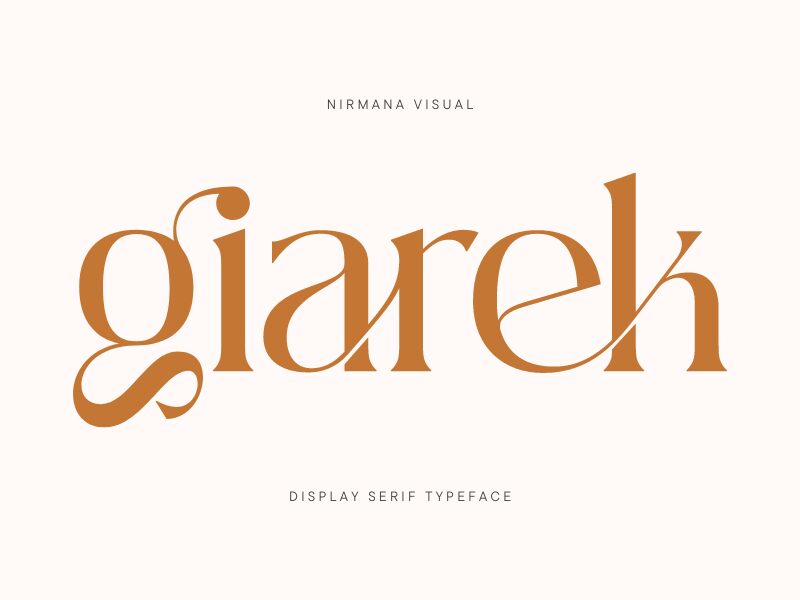
Giarek by Nirmana Visual is a bold serif typeface that combines glamor with a contemporary sensibility. Its distinctive features are gently exaggerated curves and a flared shape that will add a touch of sophistication to any design. A top choice for digital and print media, Giarek adds dimension to brand initiatives, editorial schemes as well as artistic posters.
Suitable for graphic designers looking for the right balance between classic and modern sensibilities, Giarek has a strong presence that suits many applications. Whether you're creating a luxury brand identity or creating an attention-grabbing headline, this free font can deliver something special. Download the Giarek font today and take your creative projects to new heights with its timeless appeal and visual charm.